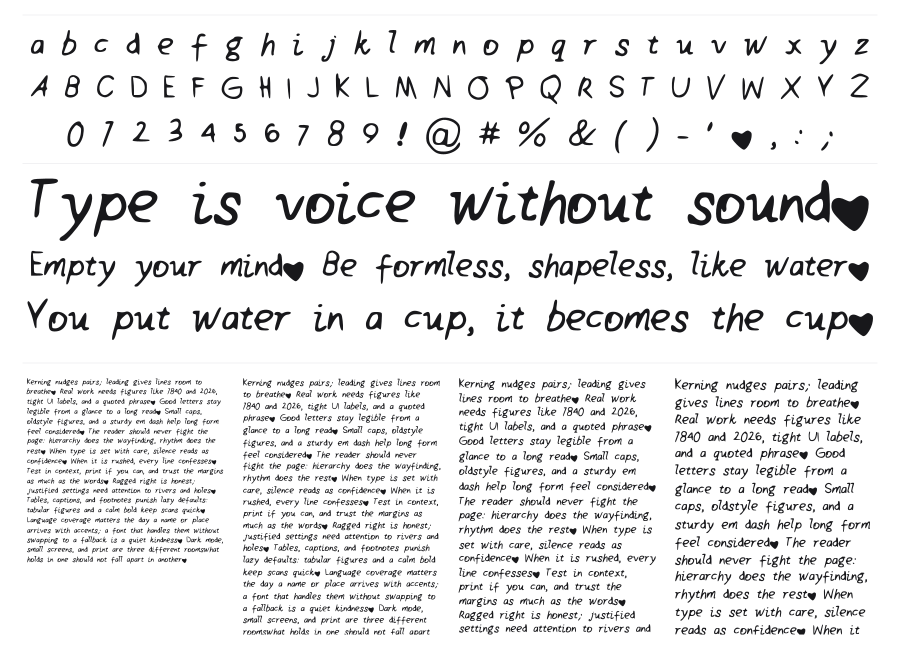
Sweet Honey
Sweet Honey is a casual handwritten face from Jodie A with soft, rounded strokes that feel like they were laid down with a thick felt-tip marker. The letterforms are playful and informal without being sloppy, carrying a genuine warmth that works well for greeting cards, social media graphics, packaging, and personal branding where friendliness is the whole point.